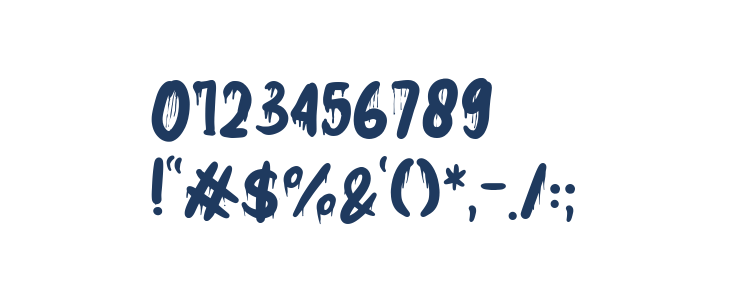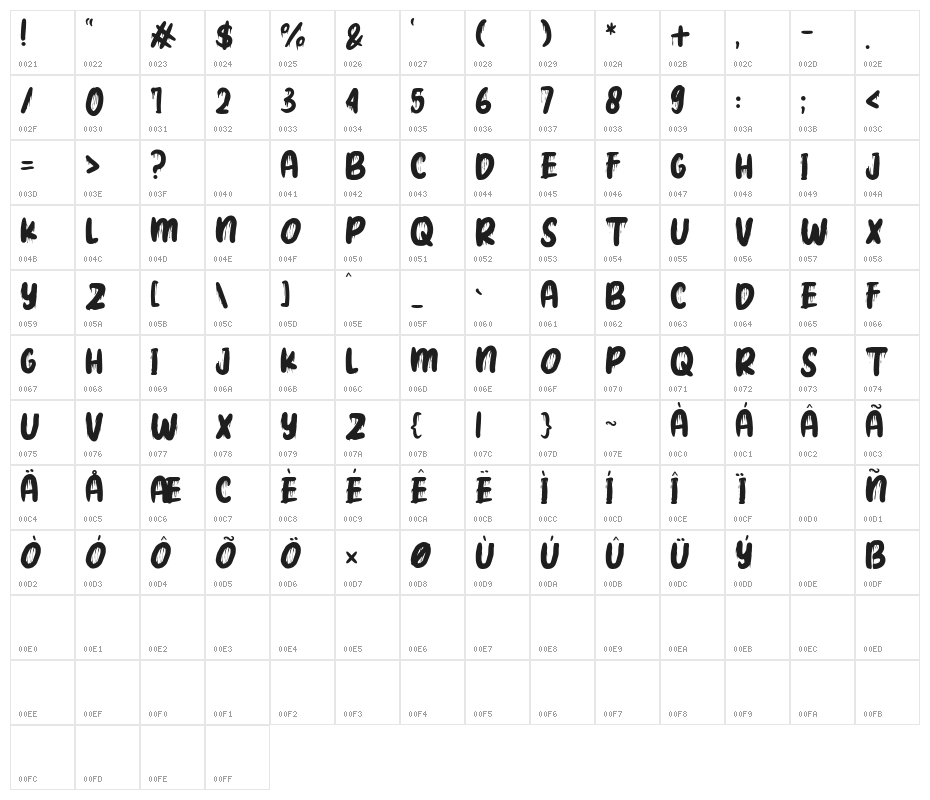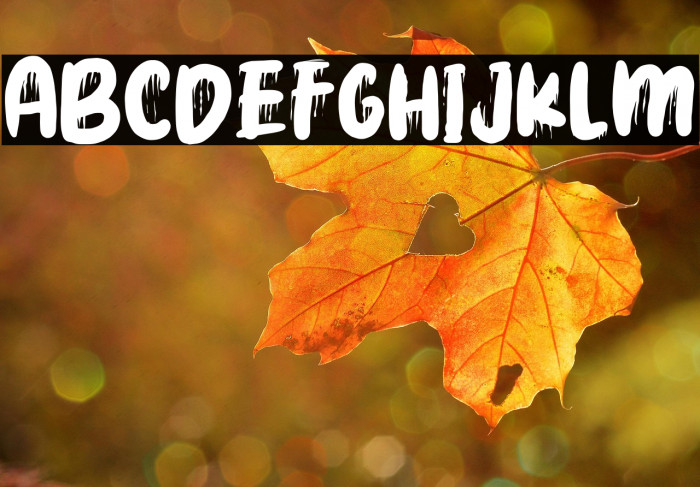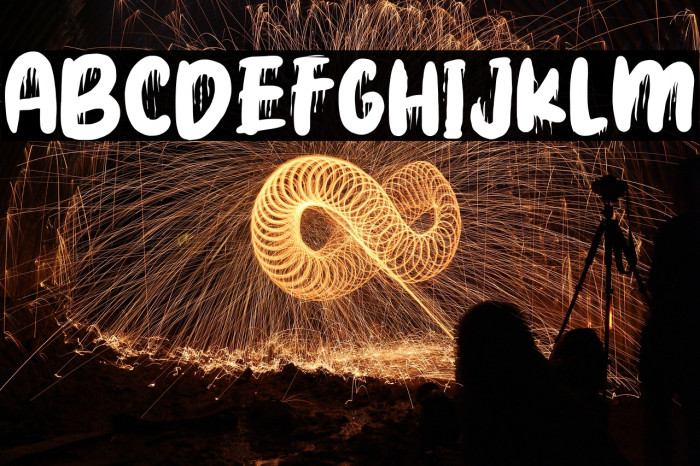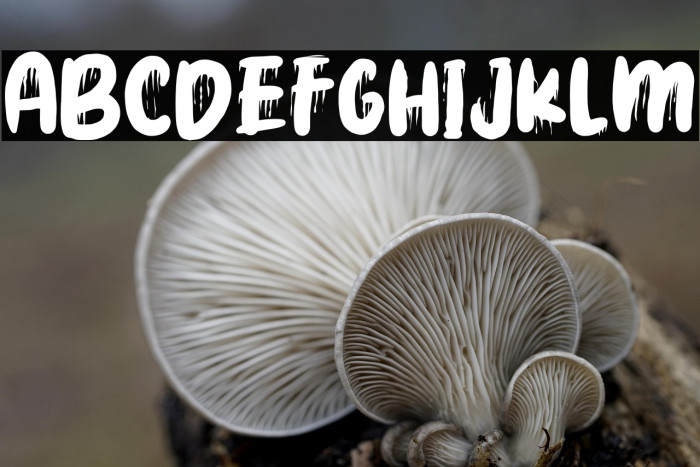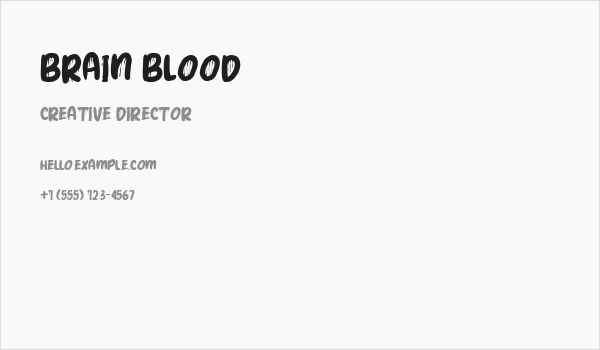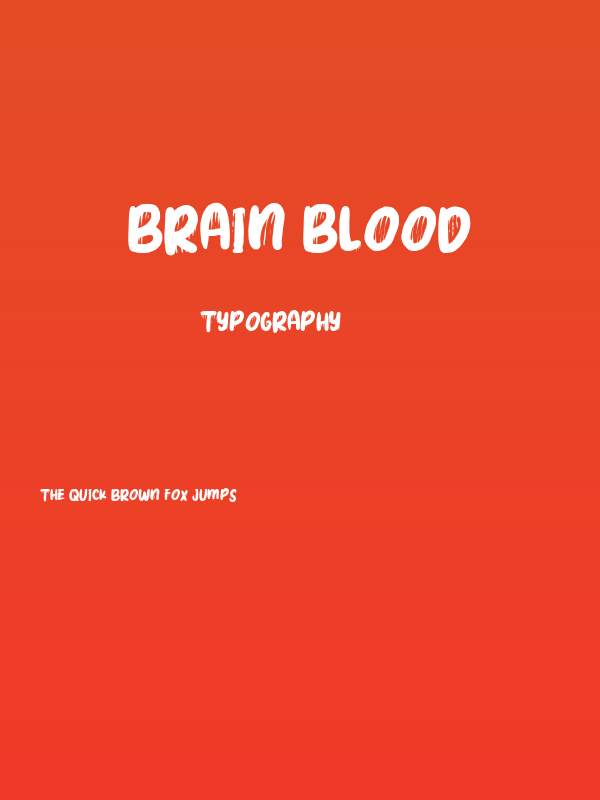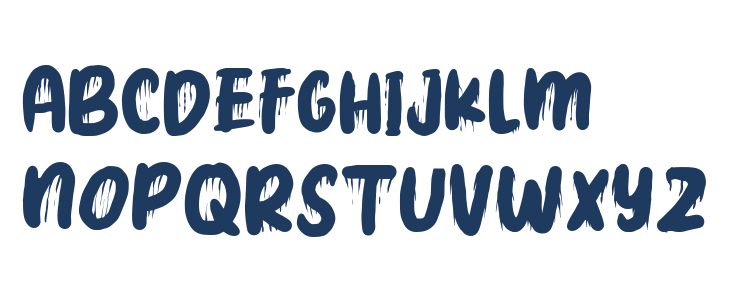
Brain Blood Font
Brain Blood Description
This font features a bold and expressive style with a brush-like texture that gives it a dynamic and energetic appearance. The strokes are thick and uneven, creating a sense of movement and spontaneity. The letters have a slightly irregular baseline, adding to the casual and artistic feel. The overall look is reminiscent of graffiti or street art, making it ideal for projects that require a bold and edgy aesthetic. The font includes uppercase and lowercase letters, numbers, and a variety of special characters, all maintaining the same energetic style.
Overall StyleModern, Artistic
Proposed ProjectsIdeal for posters, album covers, streetwear branding, and any project needing a bold, artistic touch.